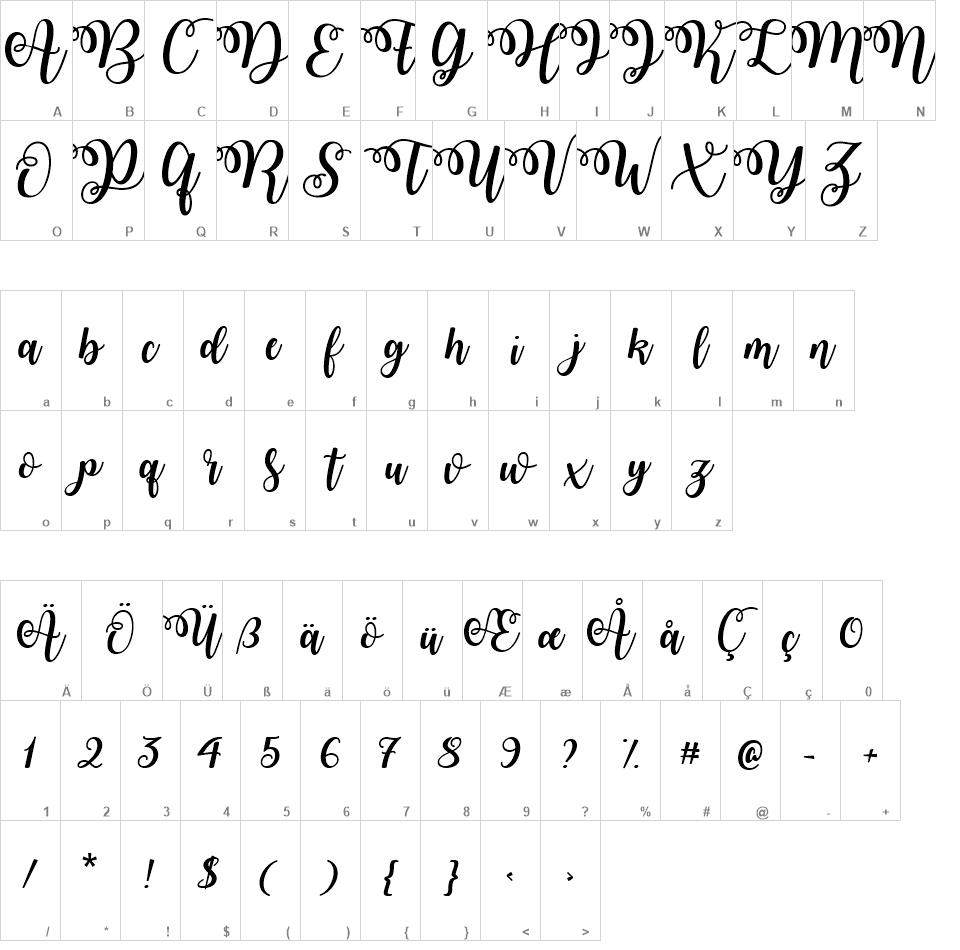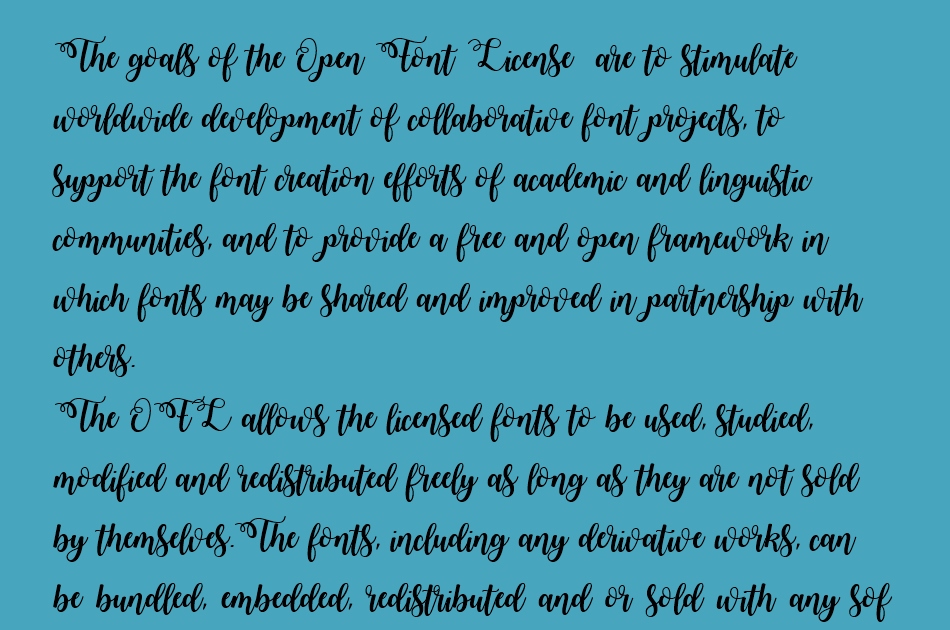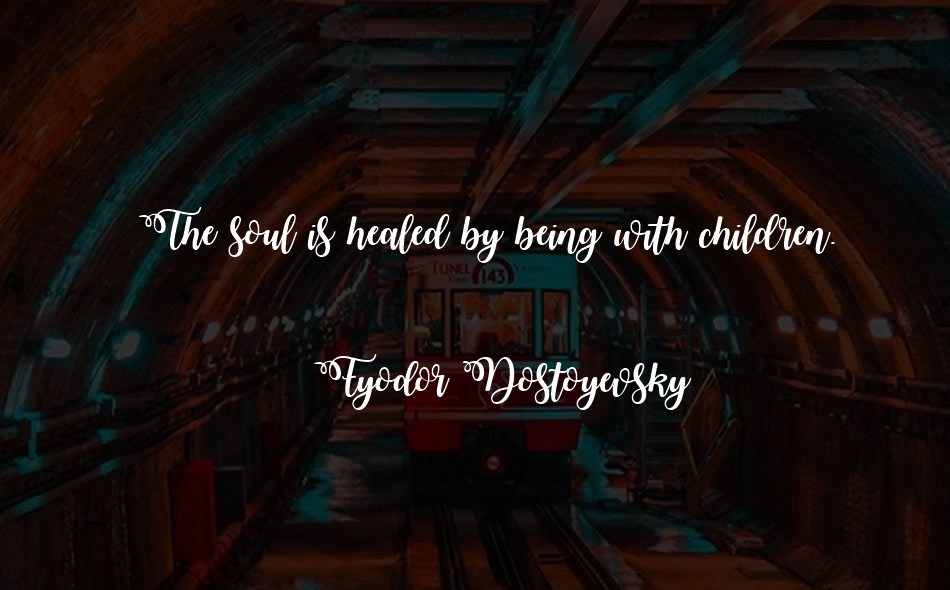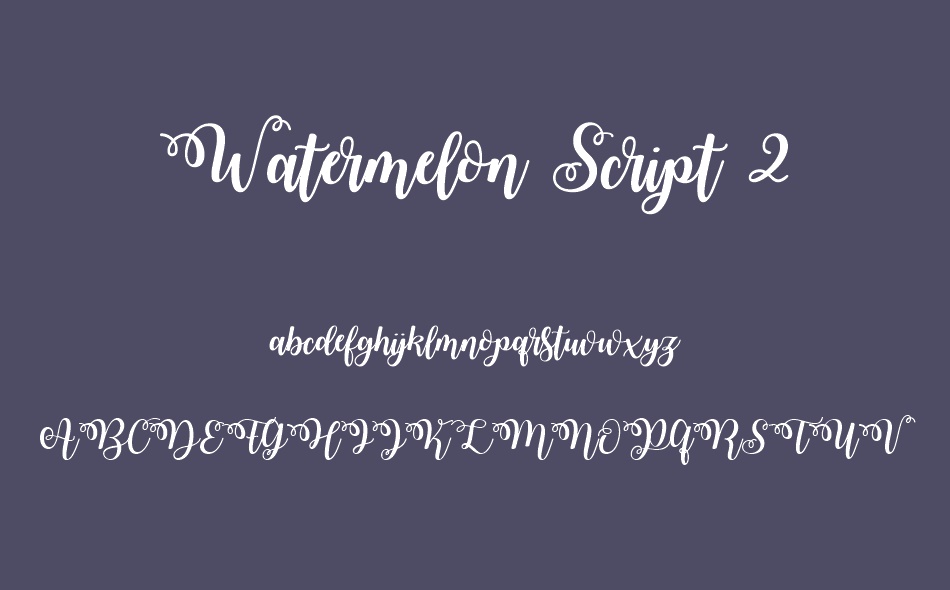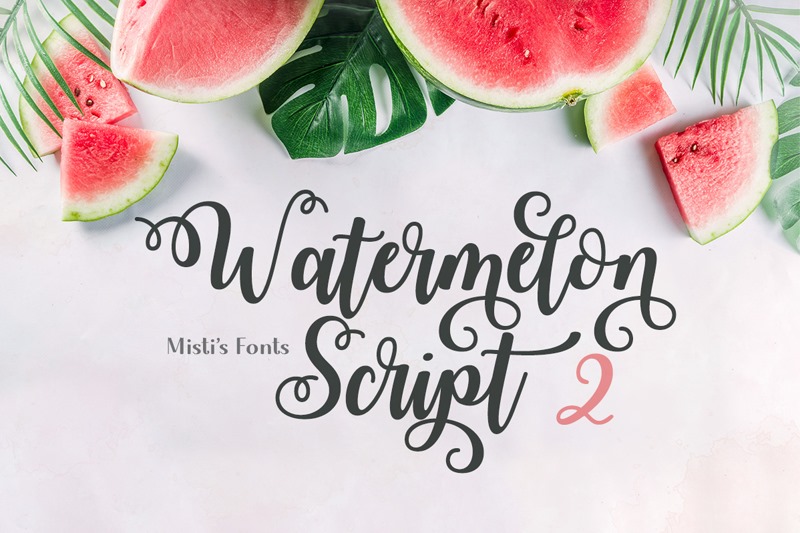
Watermelon Script 2 font
Watermelon is a modern calligraphy typeface. Its lovely curls and bouncy letters will add so much charm and feminine flair to any project. It is perfect for logos, quotes for social media, greeting cards, blog graphics, wedding invitations and so much more! This font is PUA encoded which means you can access all of the glyphs and swashes with ease.